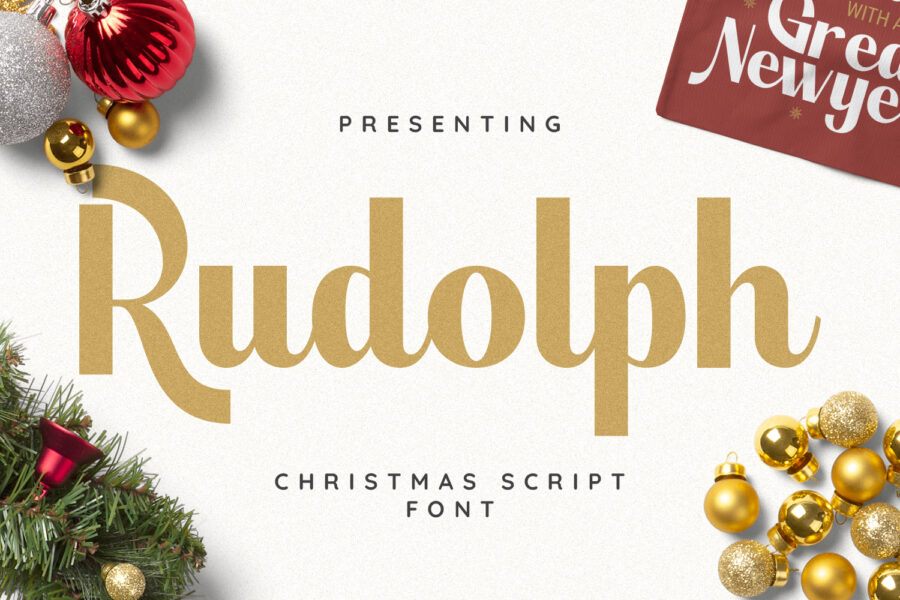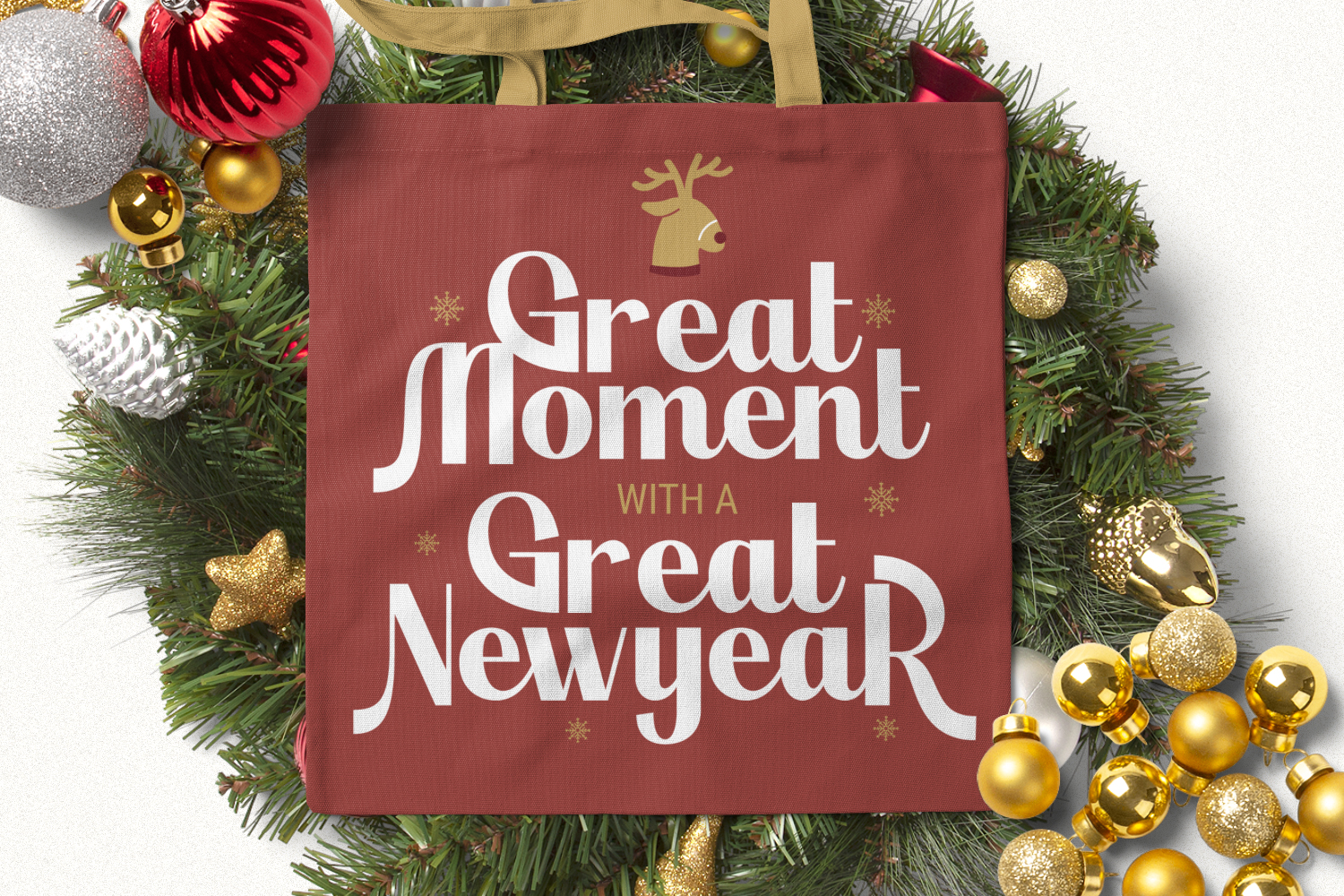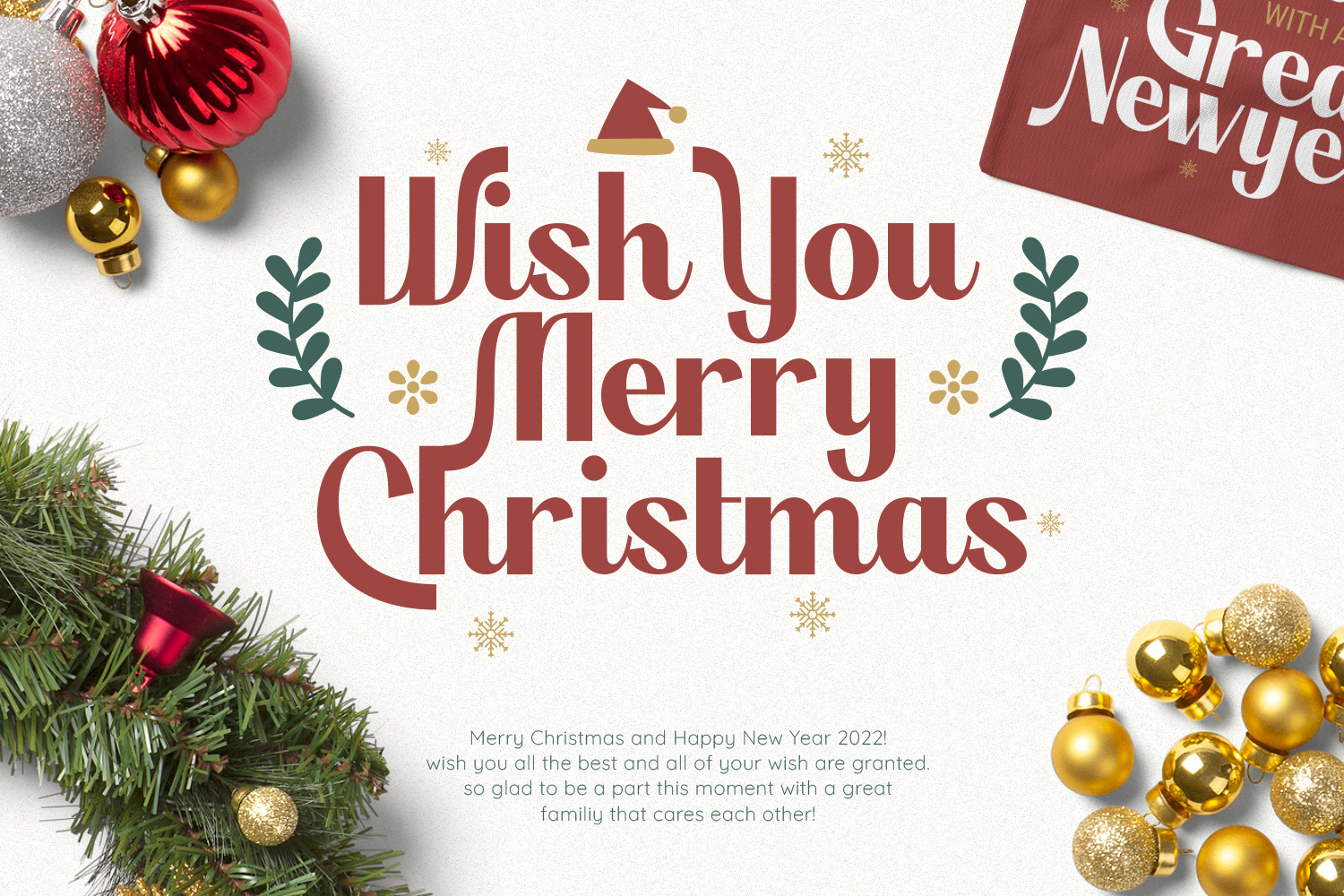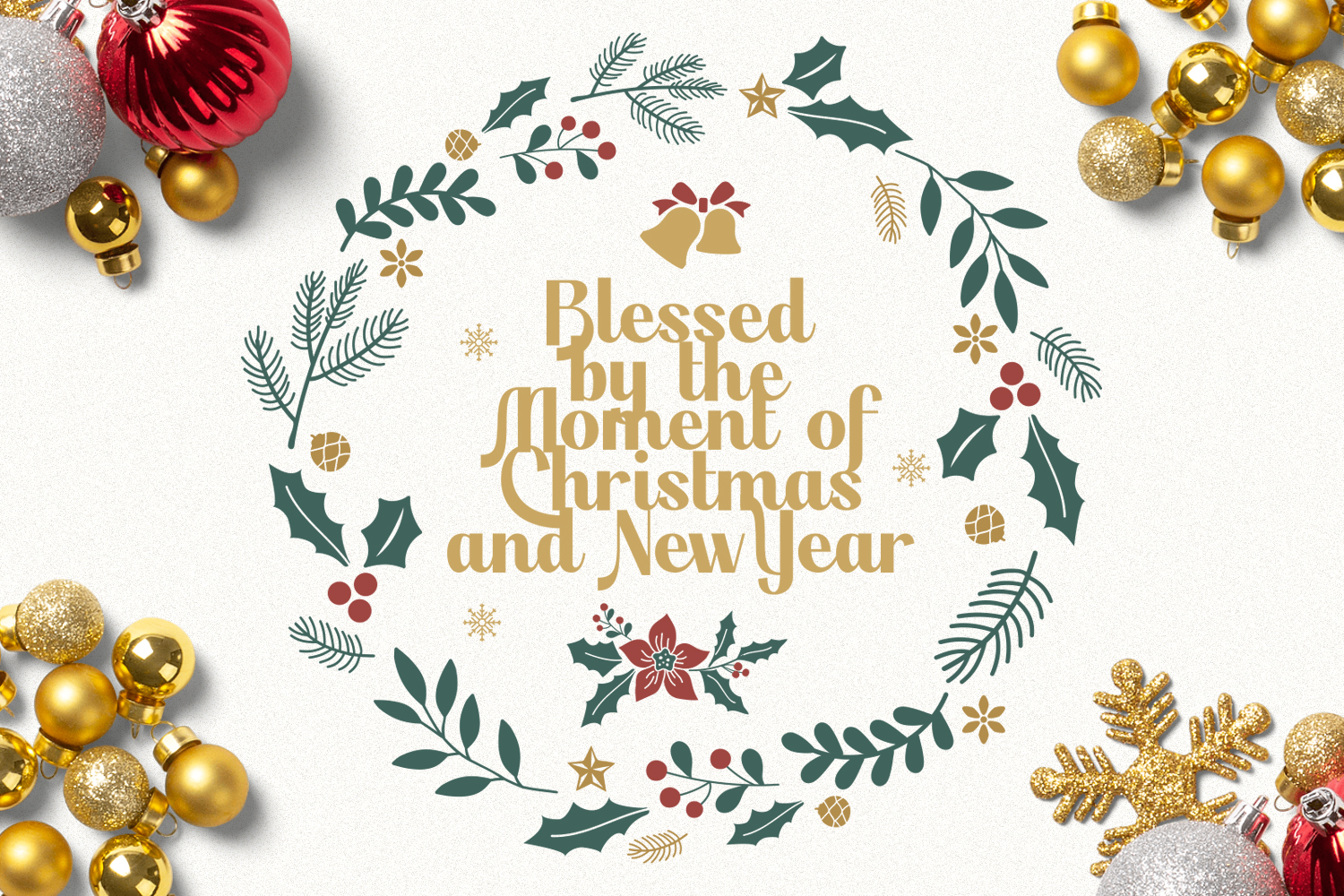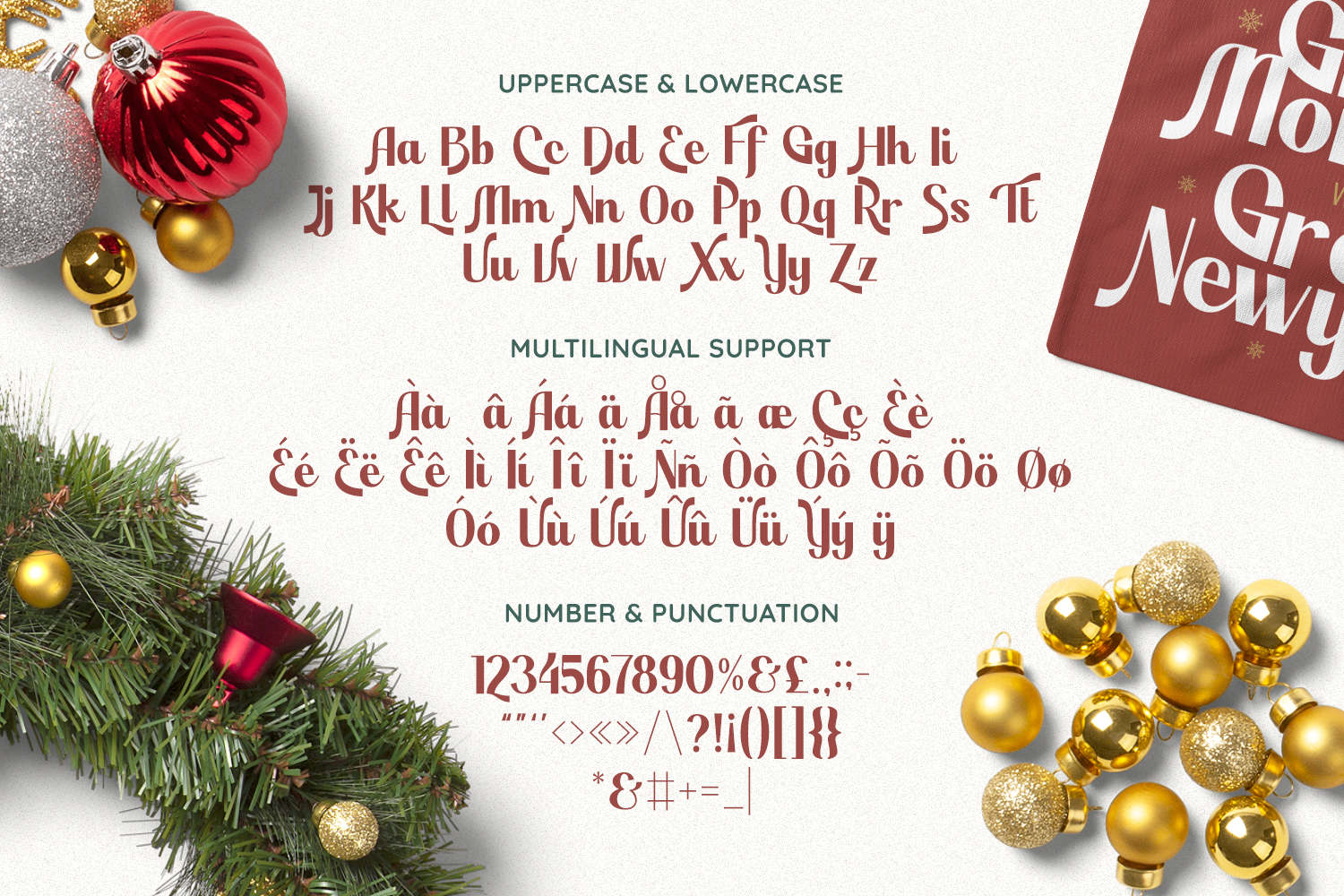
Rudolph is a charming Christmas script font that blends a classic serif structure with playful swashes and a festive personality. Its tall, elegant letterforms and stylish curves bring a joyful and nostalgic feeling to your holiday designs, making it a perfect choice for Christmas cards, gift packaging, and seasonal branding.
With multilingual support, punctuation, and numbers included, Rudolph offers both beauty and versatility. Whether you’re creating a heartwarming greeting or a cozy winter display, this font adds warmth, sophistication, and holiday cheer to any project.
Rudolph